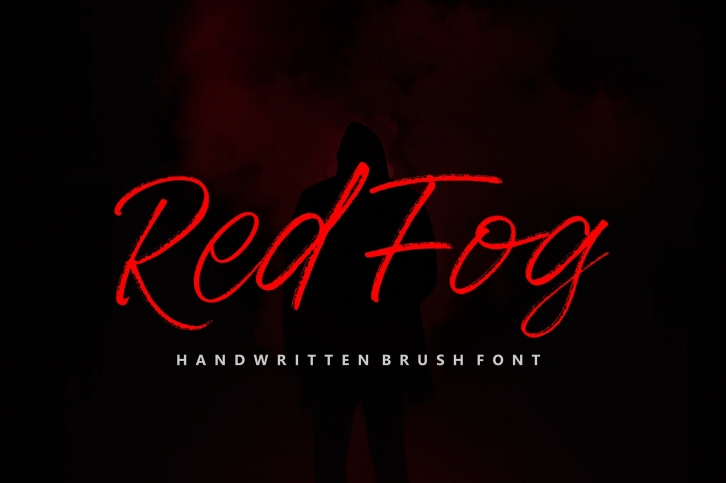
Red Fog is handmade with extraordinary characters. Ideal for logos, name tags, handwriting quotes, product packaging, goods, social media, and greeting cards. It contains a complete set of lowercase and uppercase letters, various punctuation marks, numbers.
This font also contains several ligatures, alternatives and swashes for lowercase characters, accessible in the Adobe Illustrator Glyphs panel, or under Stylistic Alternates in the Adobe Photoshop OpenType menu. But if you don't have a special type of opendype software, you can still use Red fog as well as lower case letters and standard uppercase letters on Red Fog Alt and Red Fog Ligature. File include: